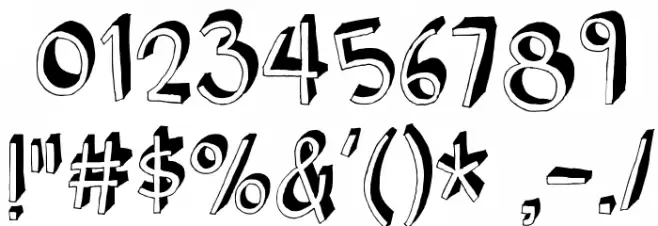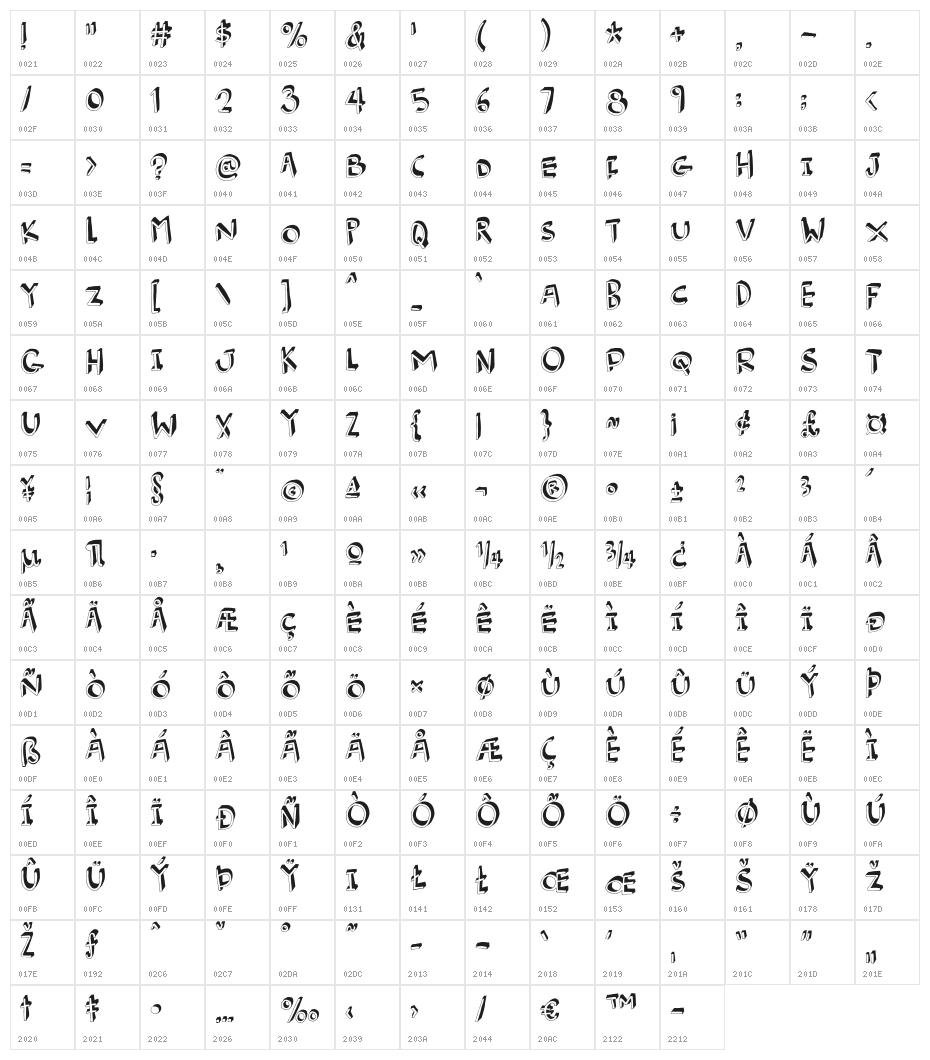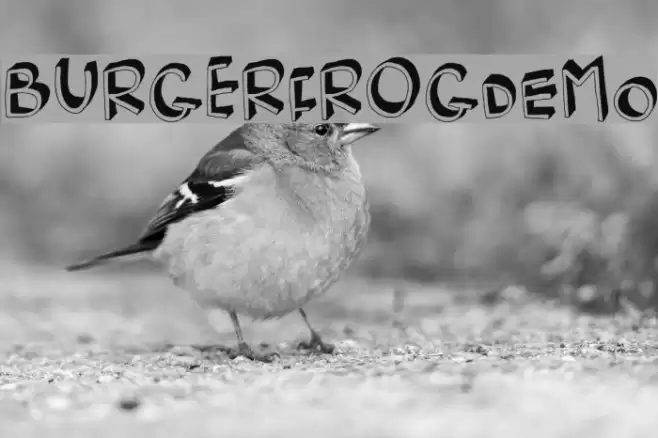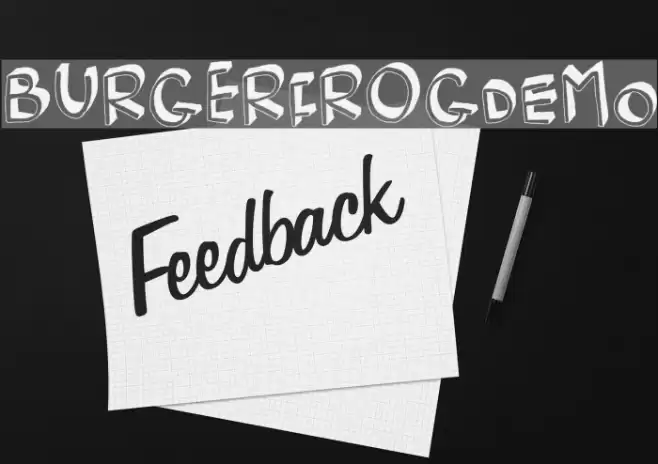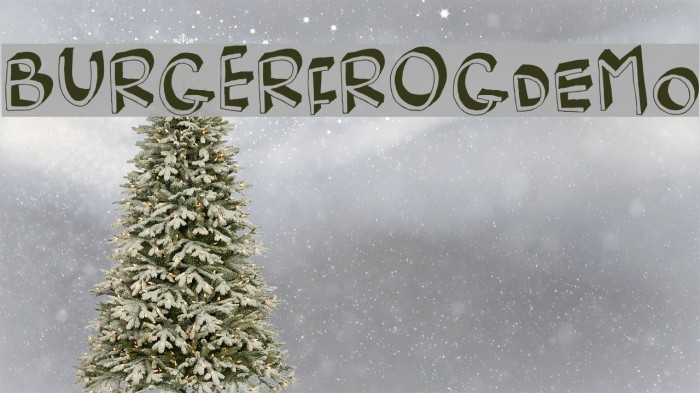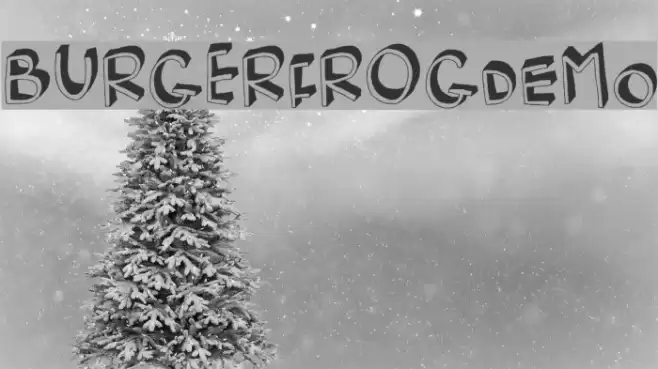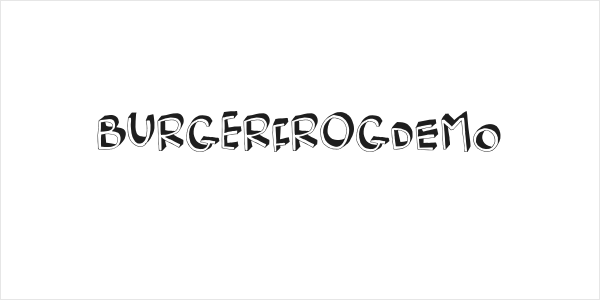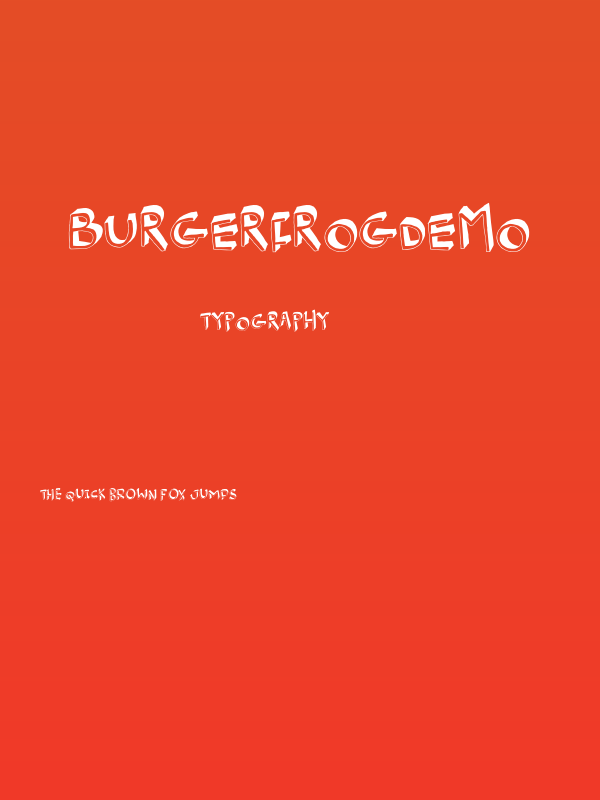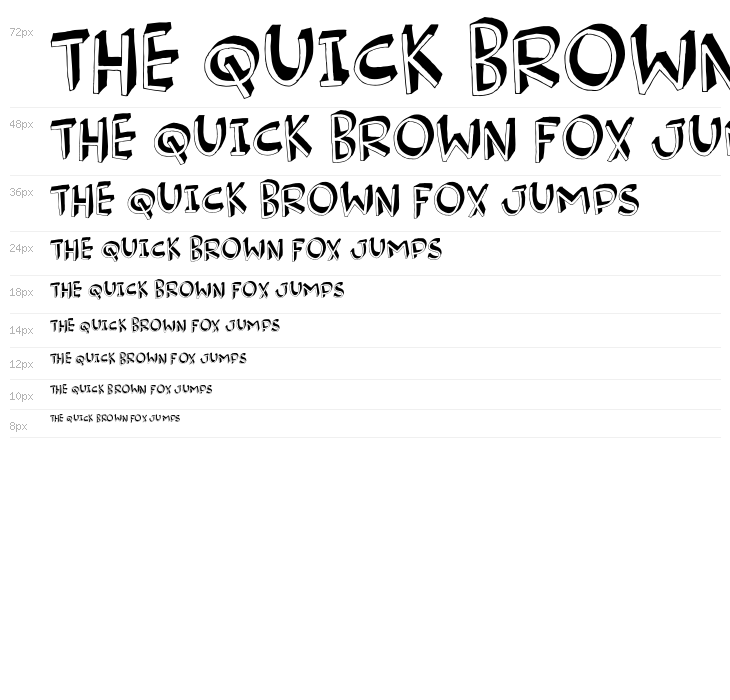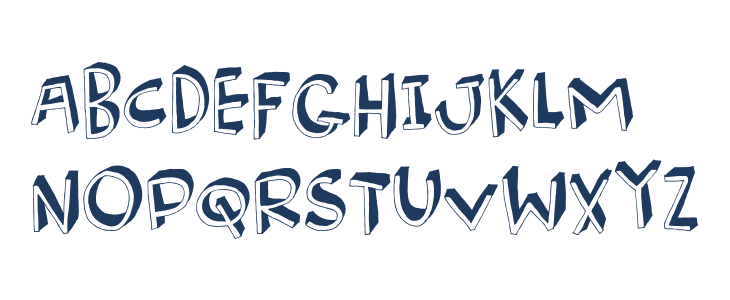
BurgerFrogDEMO Font
BurgerFrogDEMO Description
This font features a playful and bold design, characterized by its three-dimensional, shadowed effect that gives each character a sense of depth. The letters are slightly irregular, adding a hand-drawn, whimsical feel. The uppercase and lowercase letters maintain a consistent style, with exaggerated curves and angles that enhance its dynamic appearance. The numbers and special characters follow the same design principles, ensuring uniformity across all glyphs. This font's unique style makes it stand out, ideal for projects that require a fun and engaging visual element.
| Proposed Projects | Ideal for children's books, comic strips, playful branding, and eye-catching posters. |